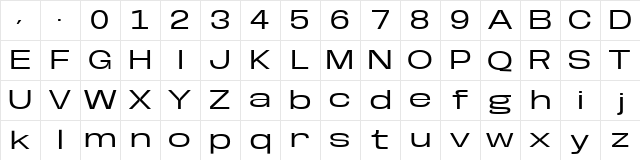
Base Neue Sup Exp Regular
Foundry: Power Type Foundry
Designer: Teguh Arief
Design Context for Base Neue Sup Exp
Base Neue Sup Exp is a composed and adaptable typeface that performs quietly and consistently across a wide range of design contexts.
Who designed the Base Neue Sup Exp Regular font?